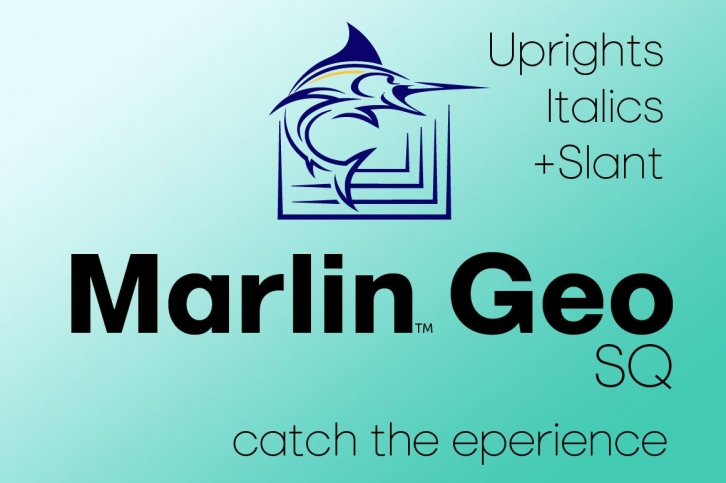
Hello everyone, you may have noticed a new FontMesa font released on June 17th called Geovetica, Monotype has asked me to rename the font because it's too close to their best selling product. Marlin is the new name choice for our new font with the geometric version being released first.
Marlin Geo SQ is the square dot, period and accent version of Marlin Geo.